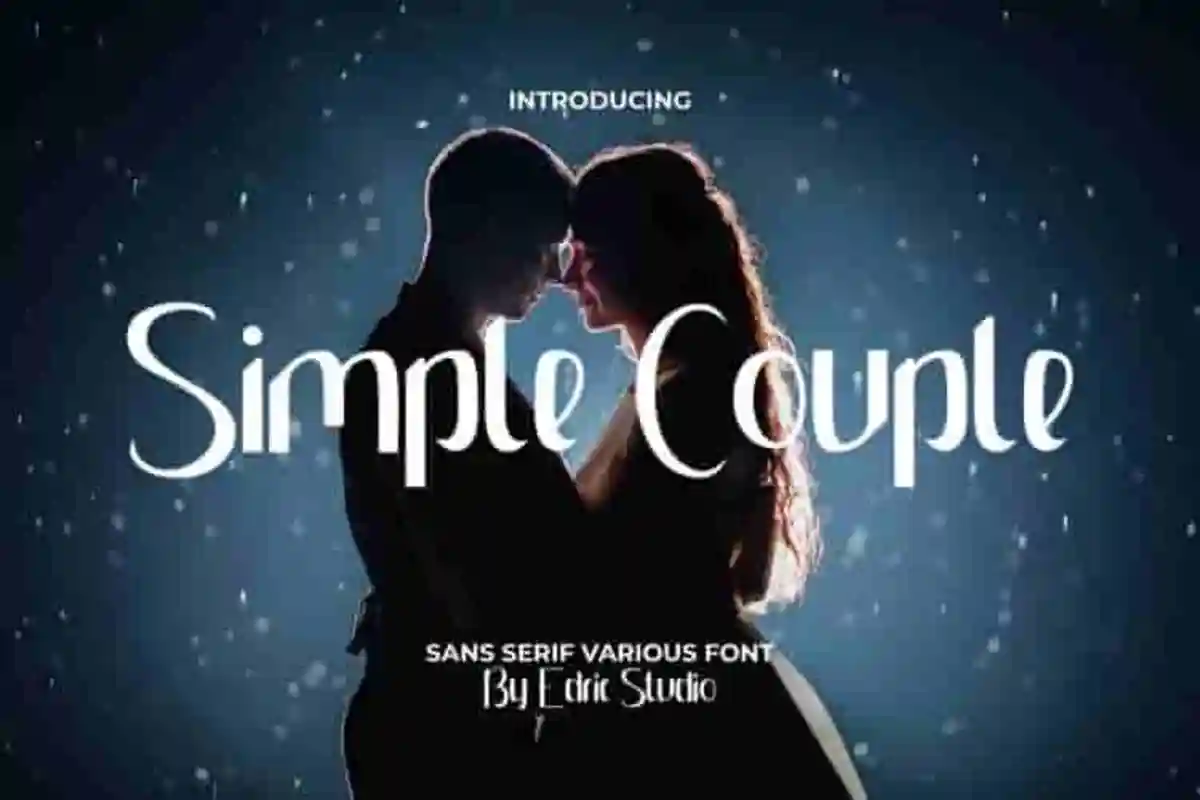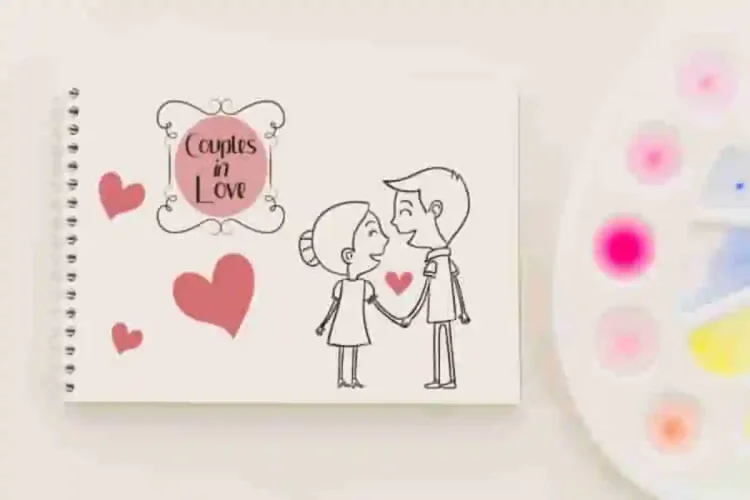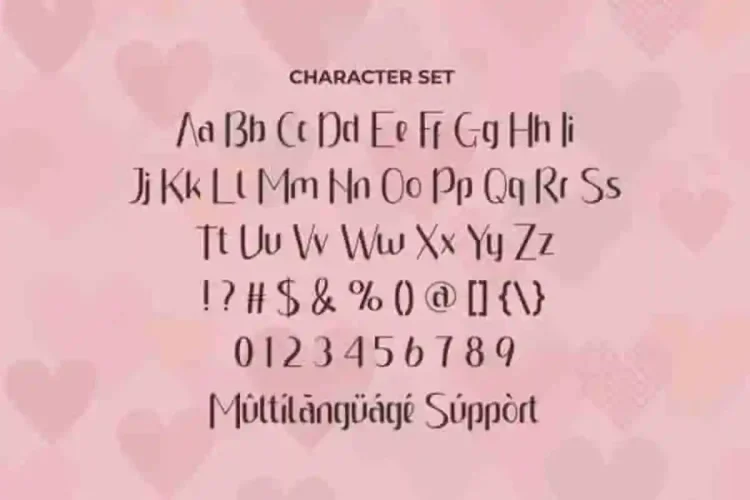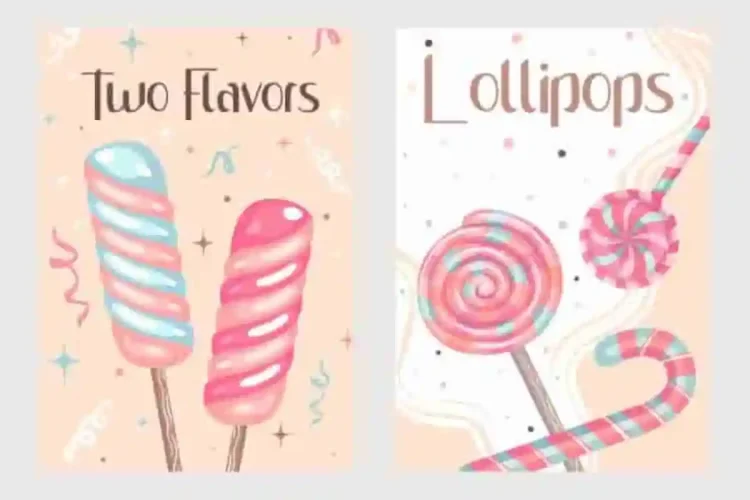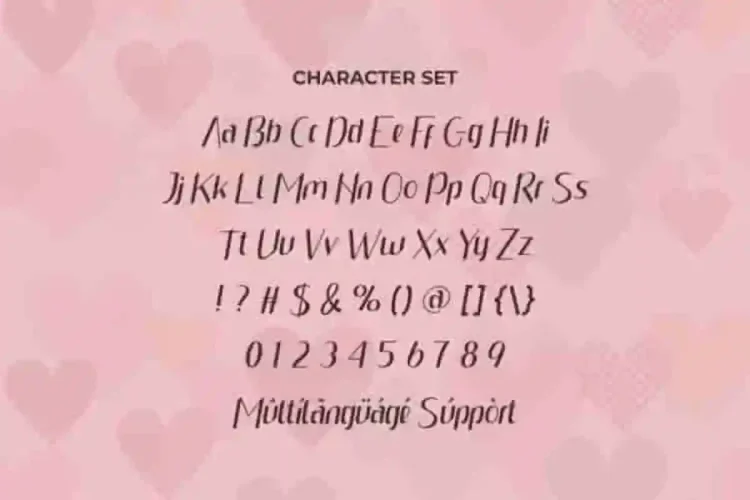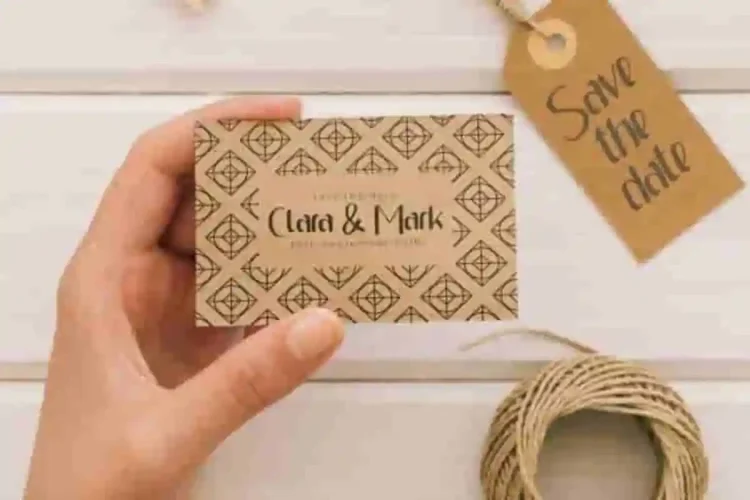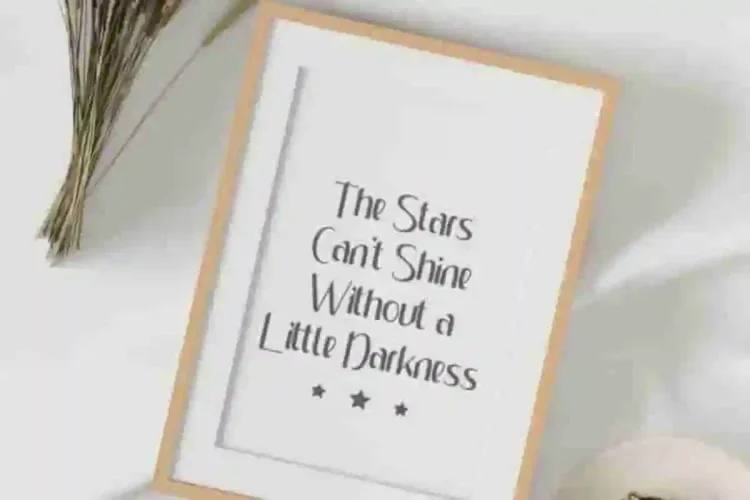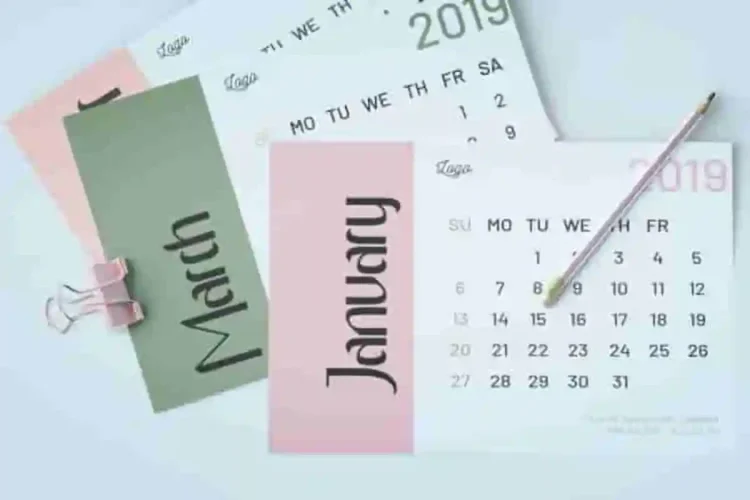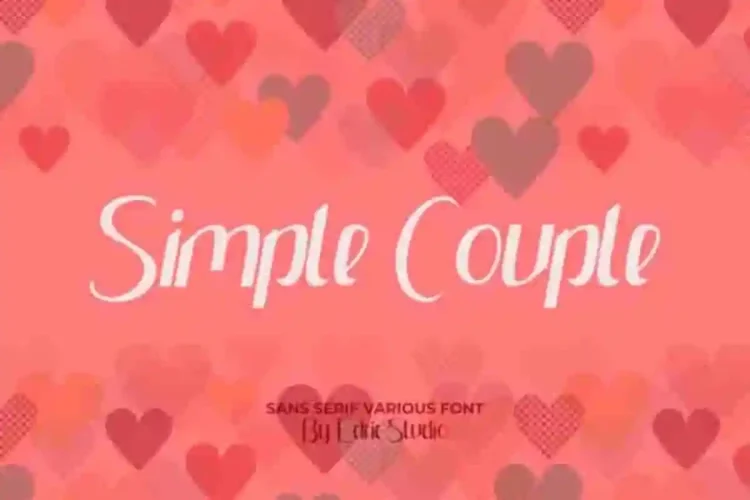
Simple Couple Modern Display Font
Simple Couple Modern Display Font is a sans serif display font. This font will be perfect for logo branding, lettering, products packaging, signage, title etc. Simple Couple Font is ideal for logo branding, product packaging, titles, invitations, signage, posters, and social media graphics.
Simple Couple Modern Display Font its versatile charm makes it a great fit for industries such as boutiques, weddings, writers, creative agencies, and any brand seeking a simple, unique, and professional identity.